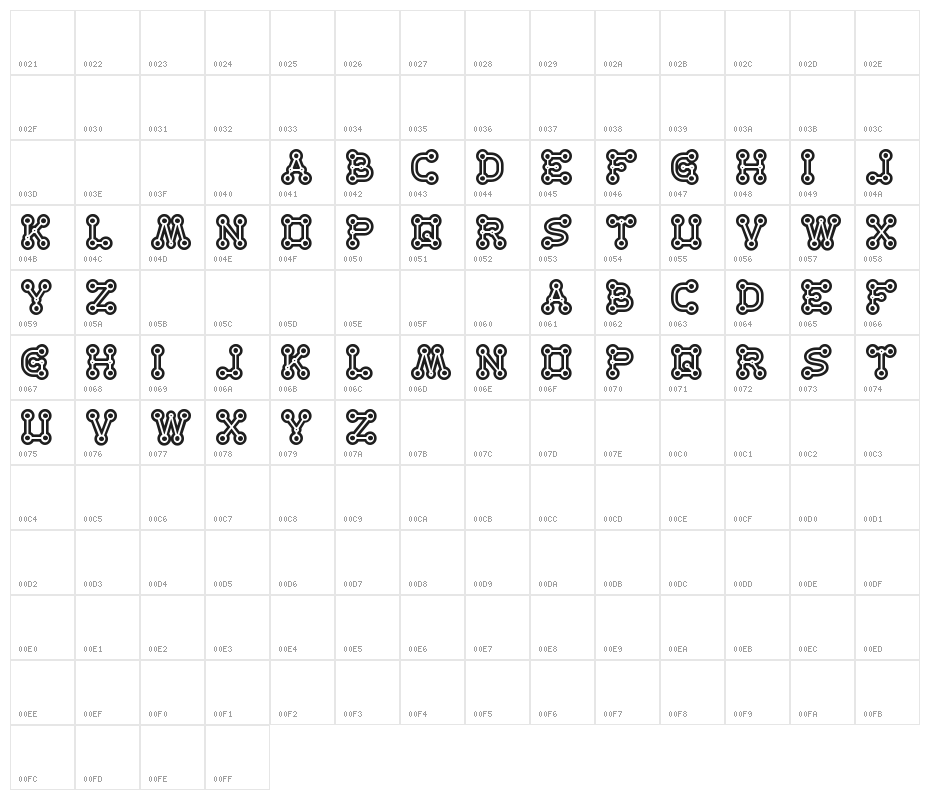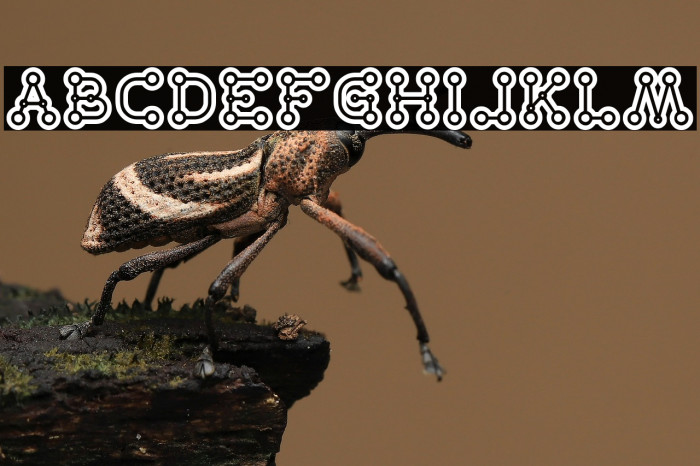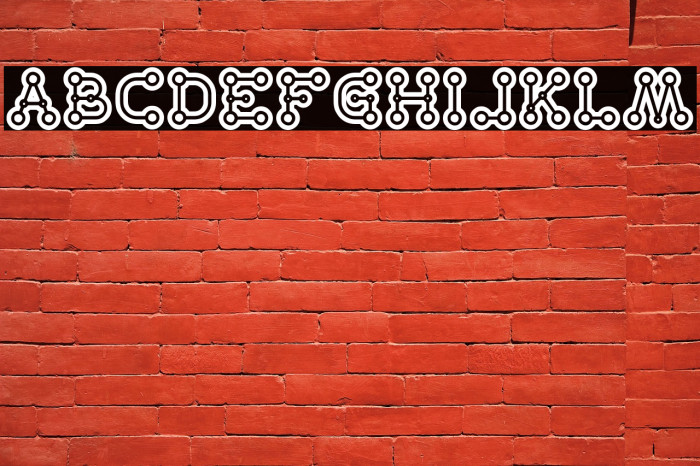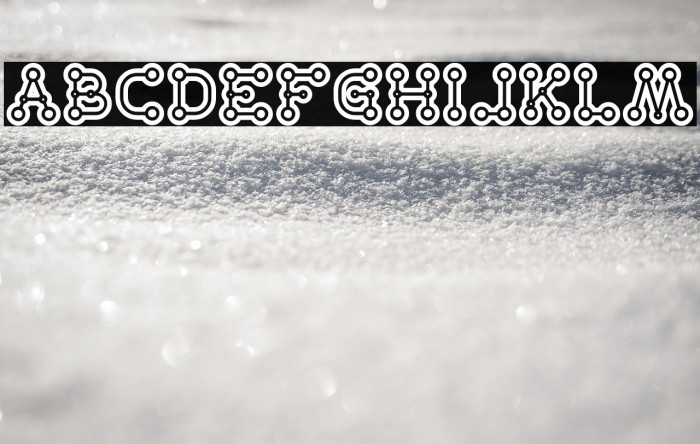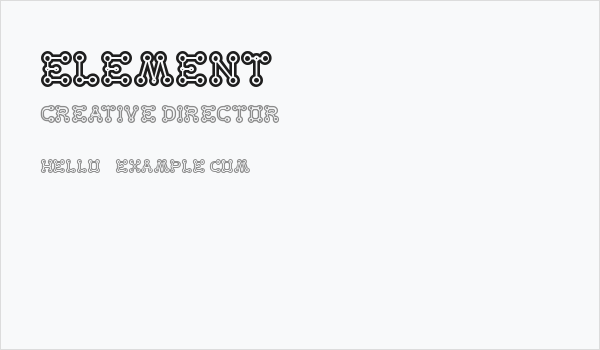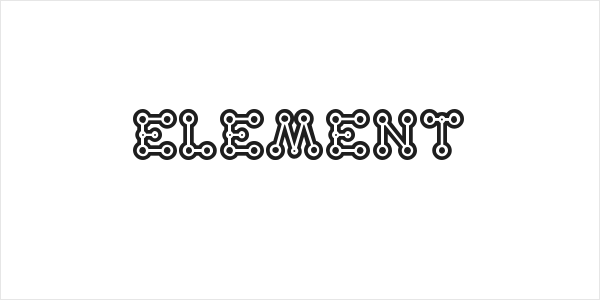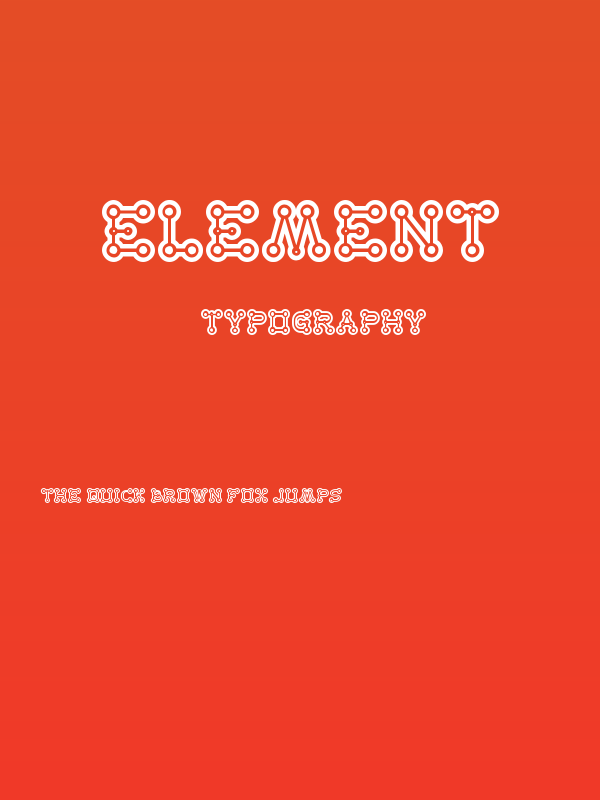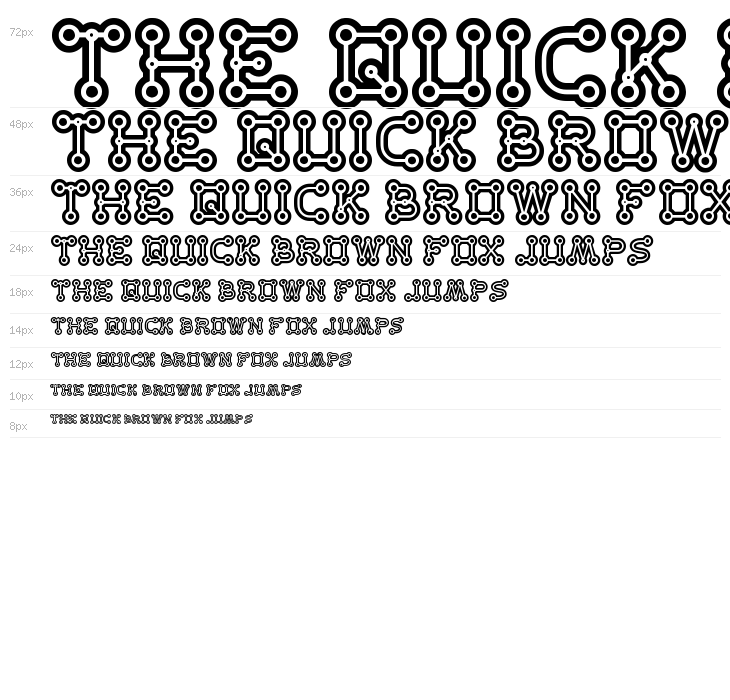
ELEMENT Font
ELEMENT Description
This font features a unique and playful design, characterized by its bold and decorative style. Each letter is outlined with a thick border and connected by circular nodes, giving it a mechanical and futuristic appearance. The font is highly stylized, with a consistent pattern of rounded edges and geometric shapes that create a sense of movement and energy. The uppercase letters are uniform in height, while maintaining a distinct individuality through their intricate detailing. This font is ideal for projects that require a standout, eye-catching typeface that conveys a sense of innovation and creativity.
| Overall Style | Futuristic, Mechanical |
| Proposed Projects | Ideal for technology-themed posters, innovative branding, and creative advertising campaigns. |